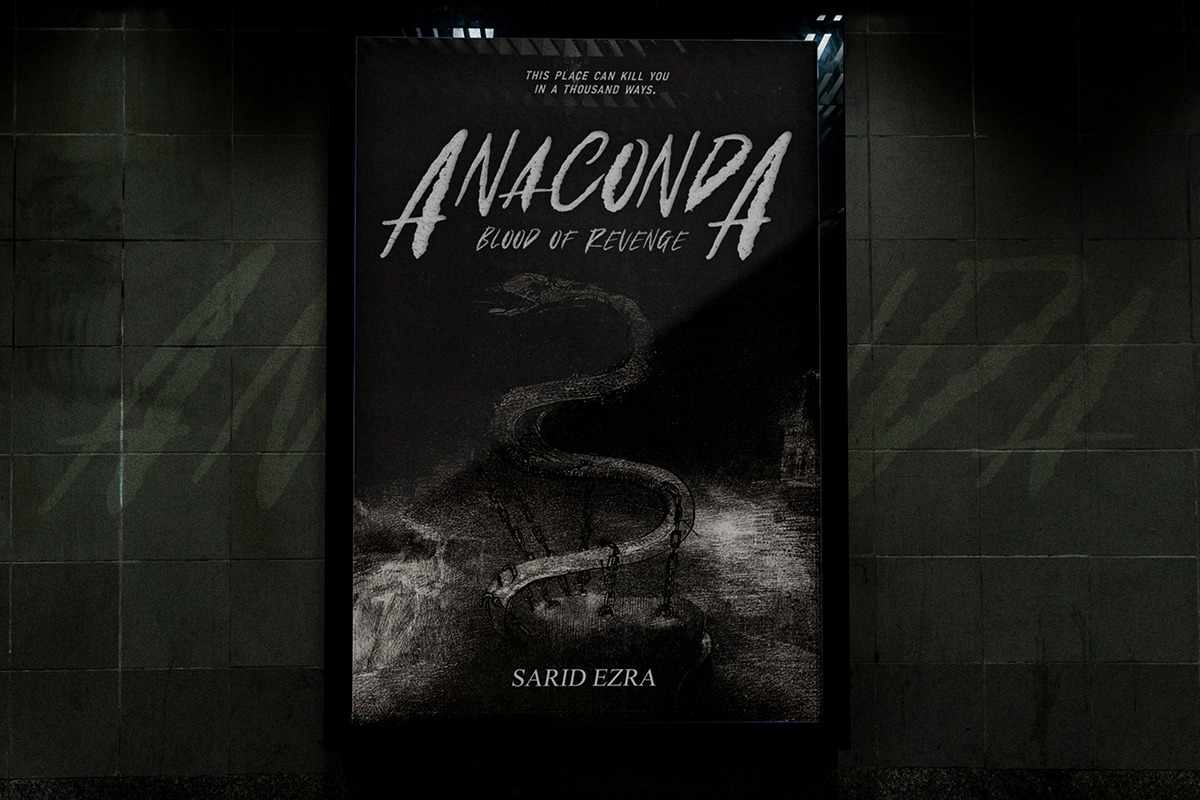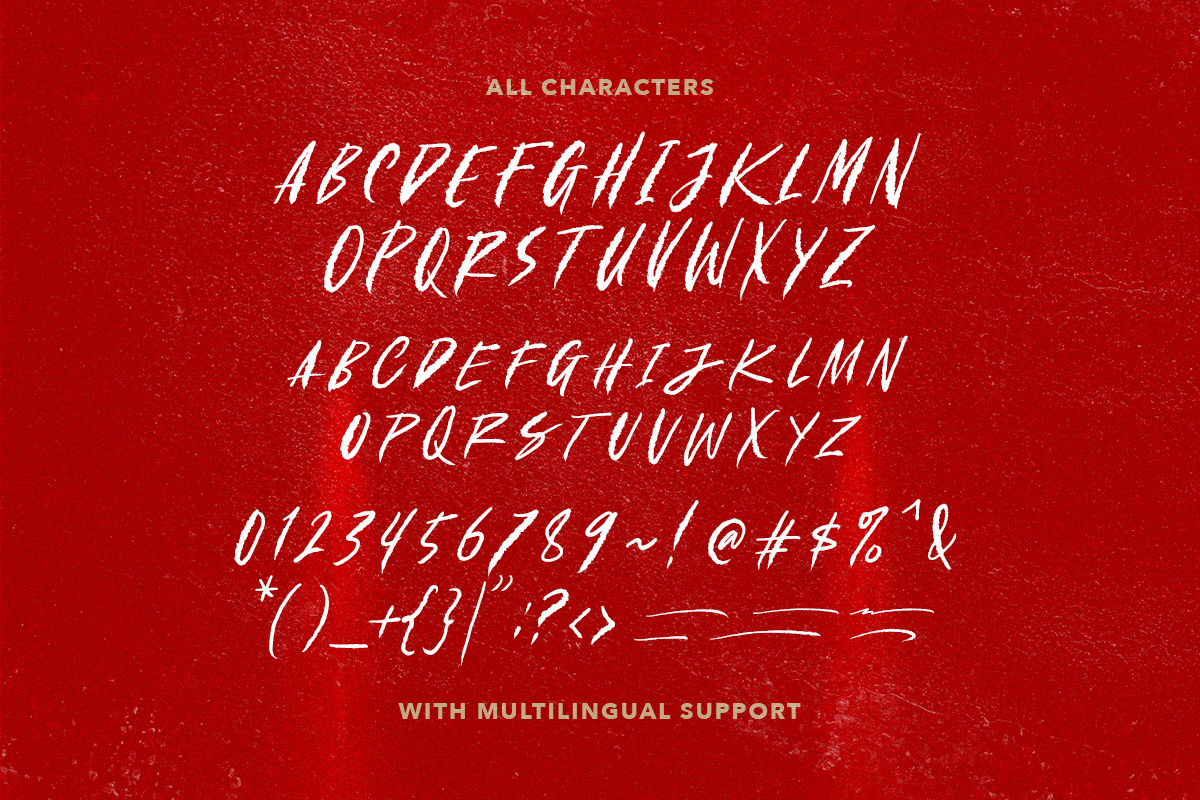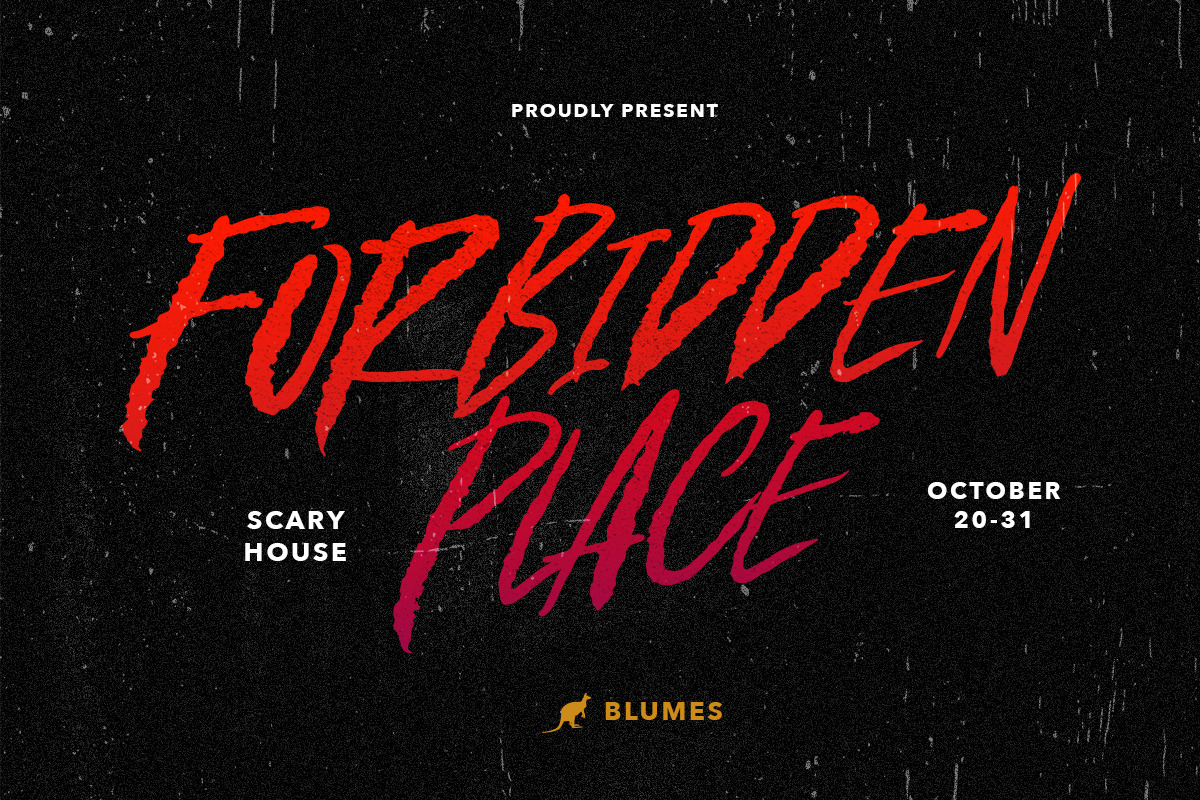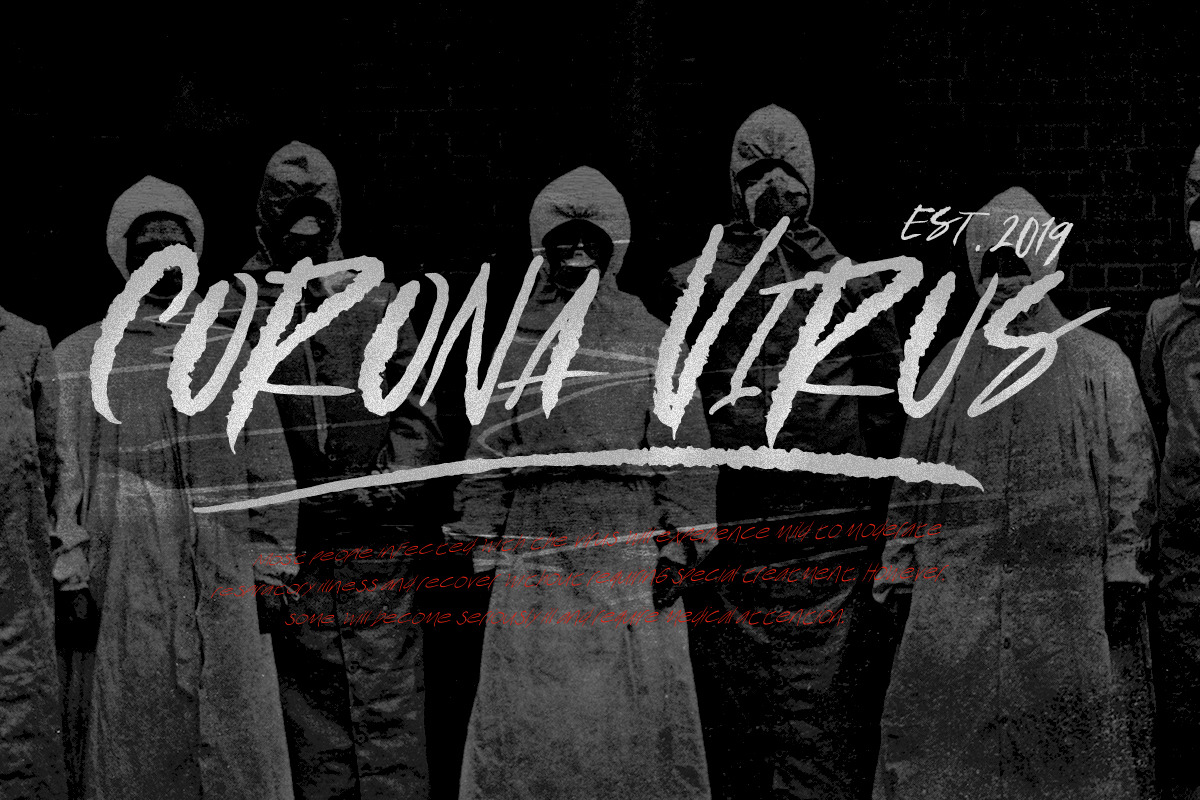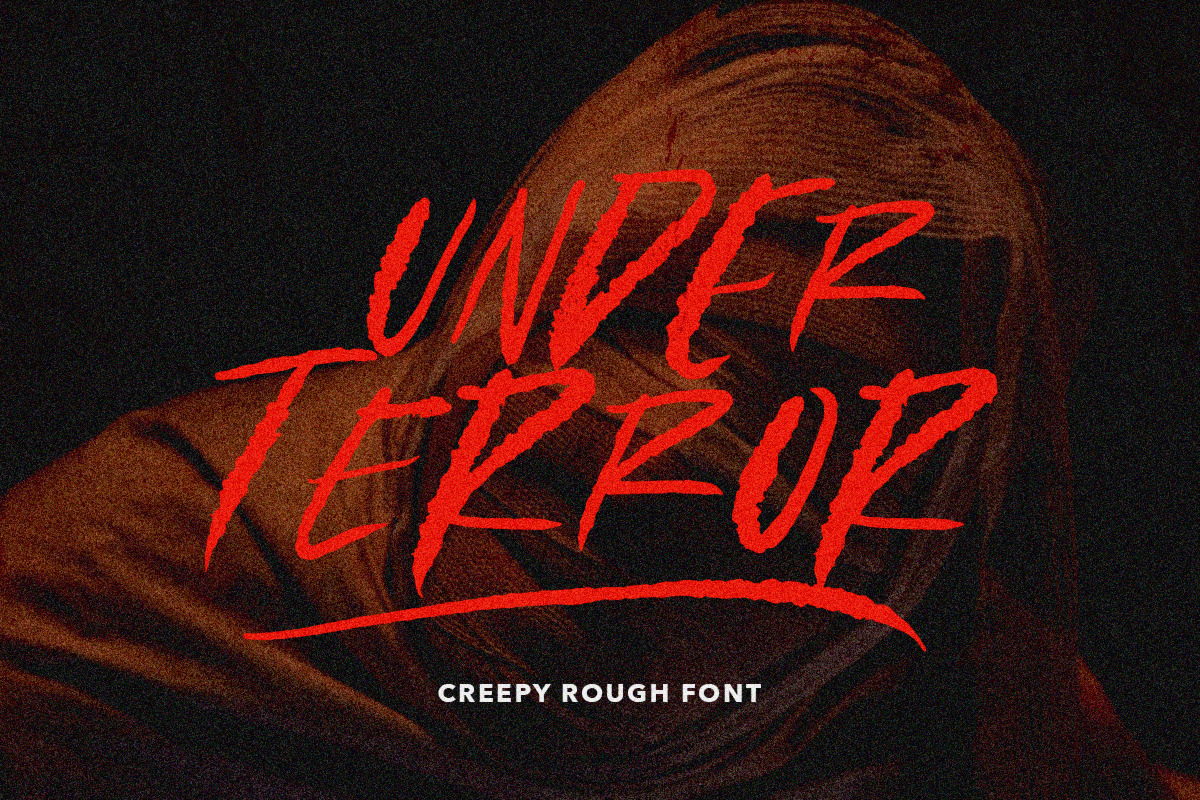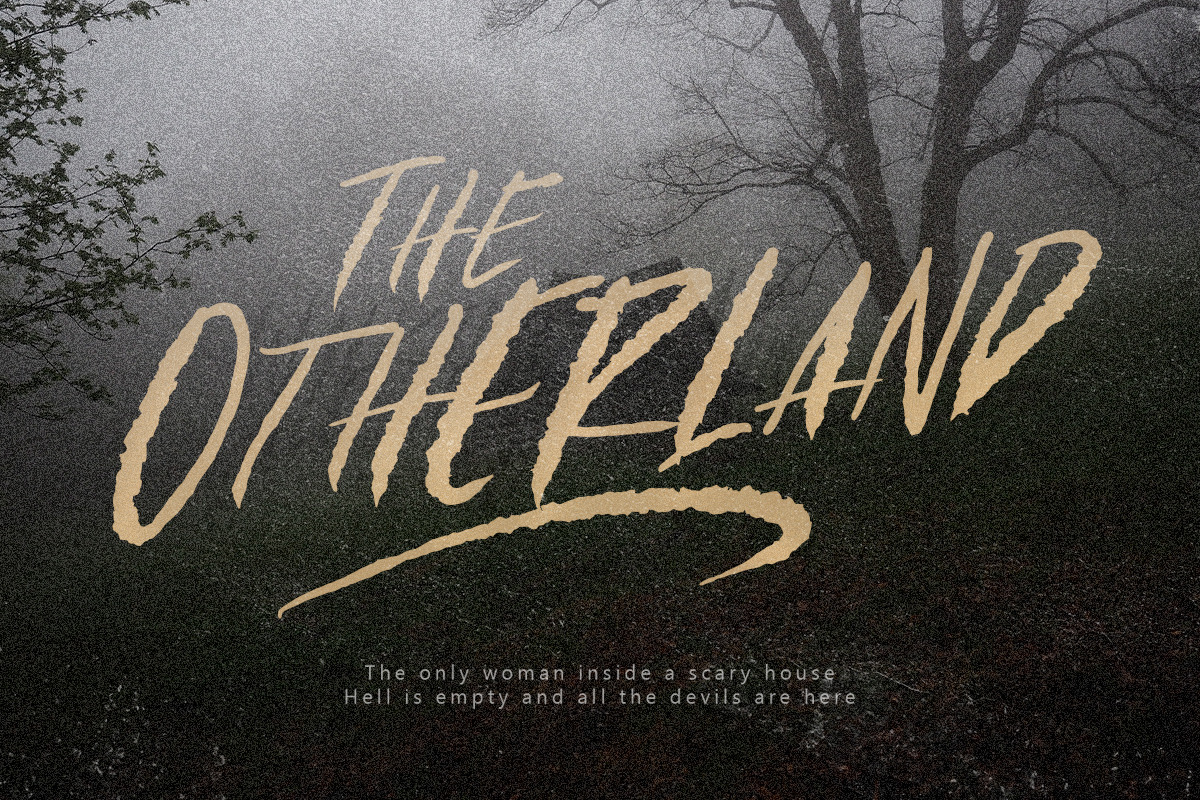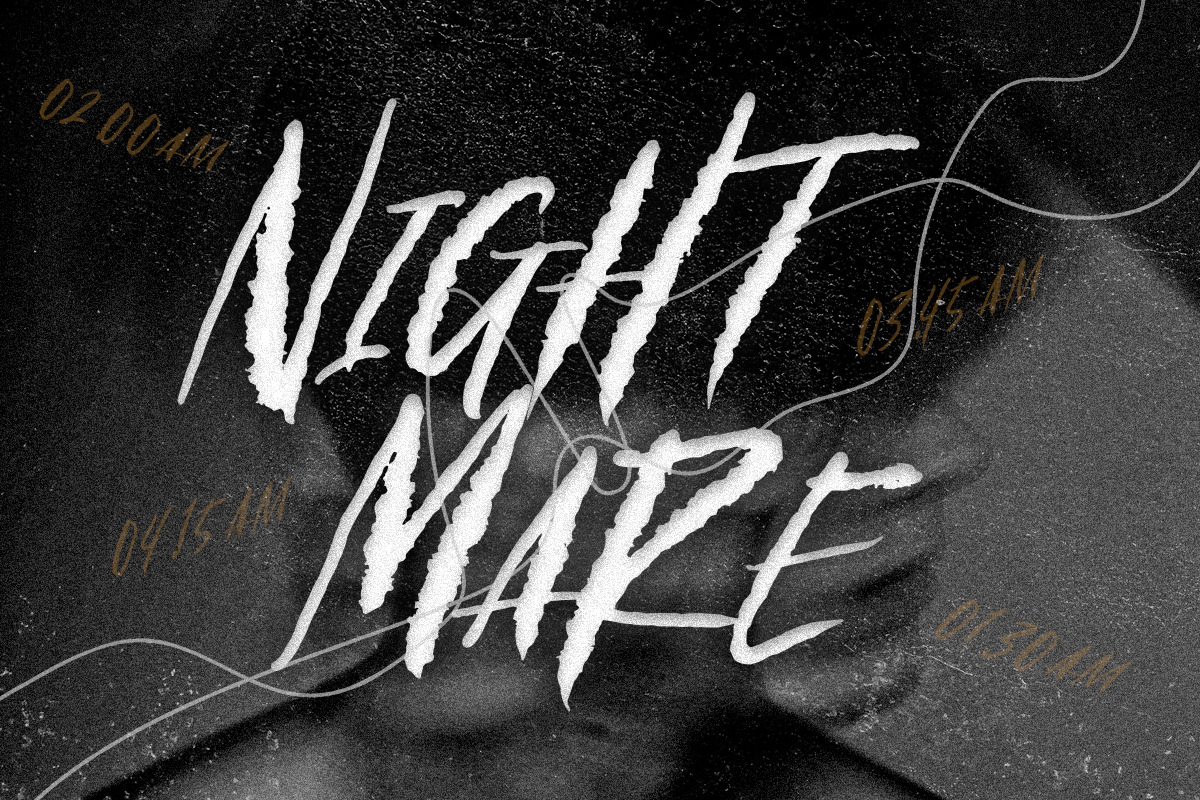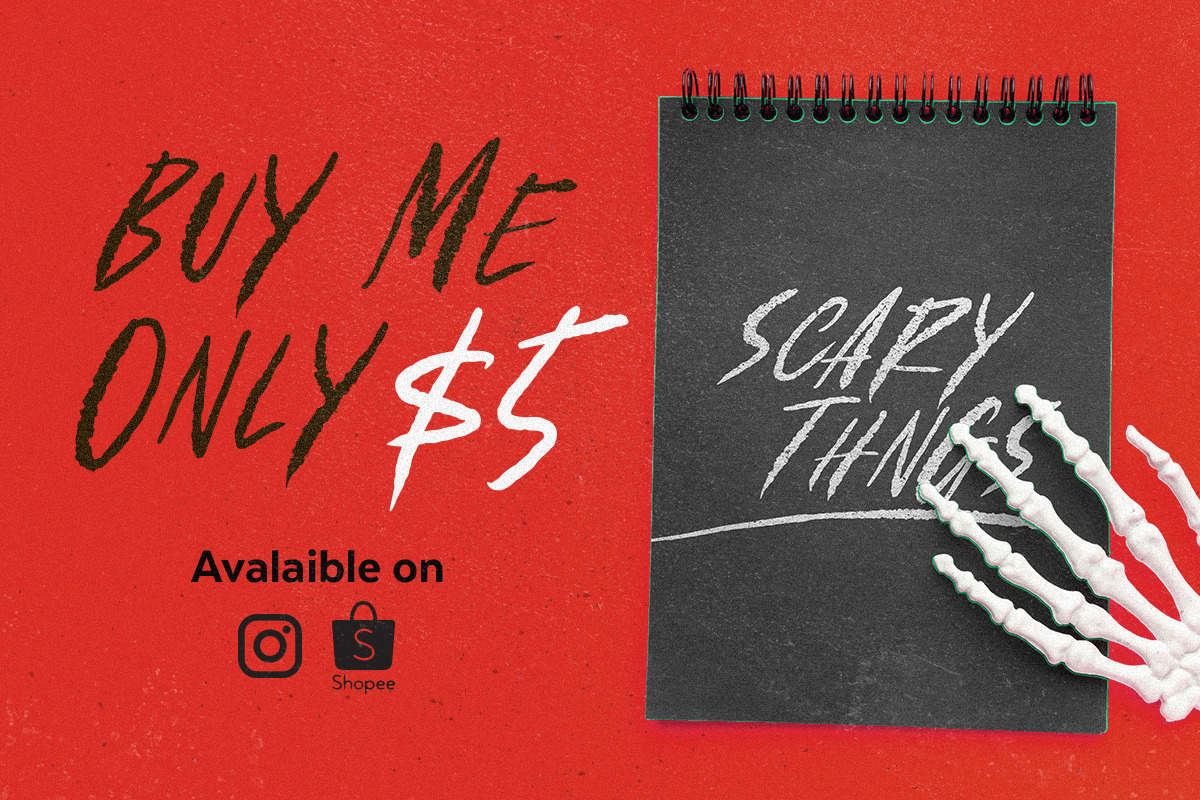
Under Terror - Creepy Rough Font
Under Terror is a rough handwritten font with creepy vibes that will suitable for your next halloween poster. You can use this font for any project especially horror movie poster. With unique lowercase and uppercase, you can combine both to get more handwritten looks. You can access the underline from ligatures, just type underline + number(1-6) in the middle of the text. For example: TeR_2roR. This font also support multilingual.